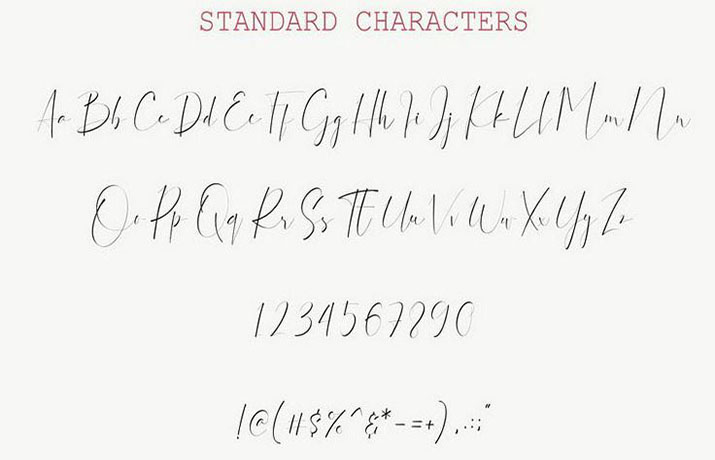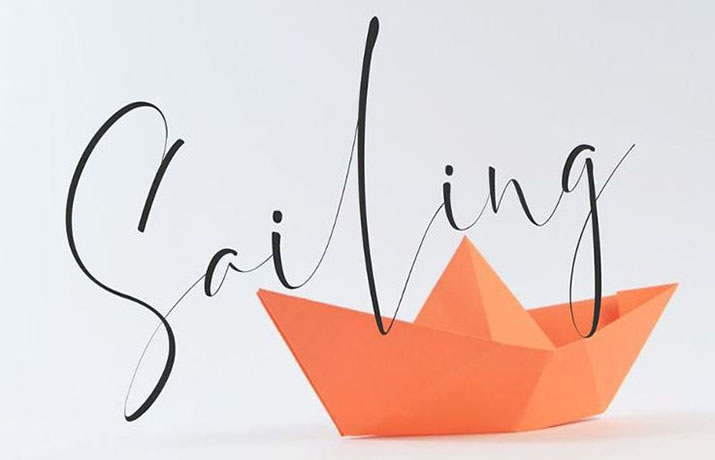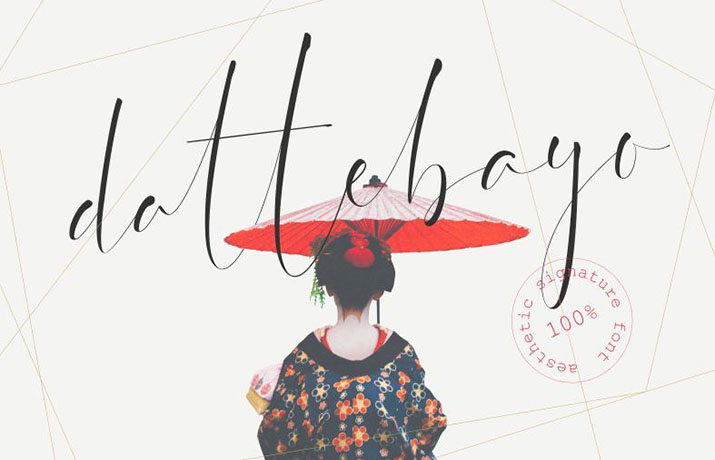
Dattebayo Font is a script calligraphy typeface that has a thin elegant letters with flowing strokes. It was designed and published by Angga Mahardika.
The designer has made the texture of this luxurious font very light to make it unique. And you will observe two types of strokes including extra light and light.
Its smooth and flowing strokes with lots of ligatures make it an excellent choice for logos, invitations, posters, headers, flyers, fashion magazines, cosmetics, card printing, and more.
“Dattebayo typeface comprises only one regular style along with Truetype features. This font includes 238 glyphs, upper & lowercase letters, numbers, and some punctuation marks. Moreover, it also supports 64 languages”.
- You may use it for a variety of stylish purposes, including shopping bags, brand logos, product packaging, greeting/wedding cards, banners, invitations, birthday cards, headers, letterhead, signage, labels, news, posters, card printing, movie posters, game graphics, special cards, t-shirts, magazines, books, and greeting/wedding cards. All of these are made possible by its amazing and modern appearance.
This font supports 64 multilingual languages.